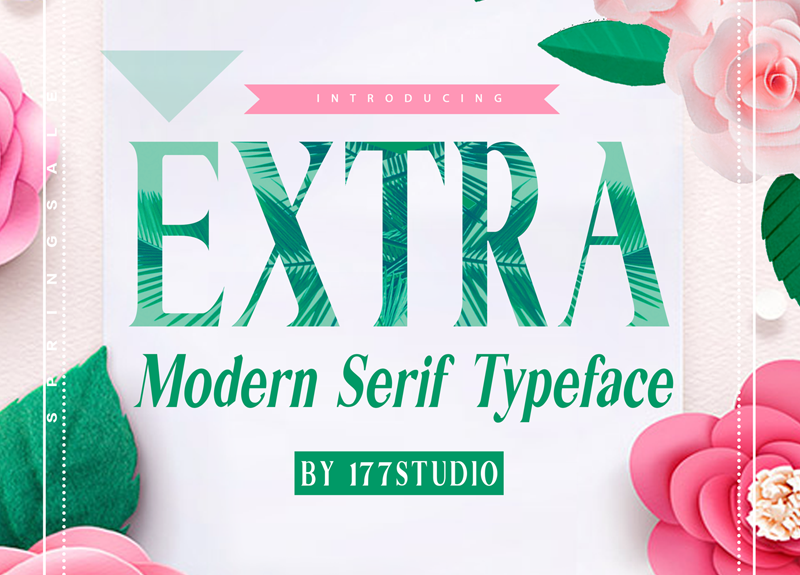
Preview and download Extra Serif Font. Created by Kenz in Basic Serif styles with Free for personal use license.
EXTRA Serif Font is a modern serif font whose design refers us to the style of transitional serifs. A little bit retro and a bit modern, EXTRA SERIF FONT is great for logos, editorial or web design. The unique sharp serifs mixed with thin strokes give off a bold mid century architectural vibe. You can buy full license from our store for more our fonts: https://gumroad.com/l/FPXhs if you have any problem, let we know by email: admin@177studio.com |